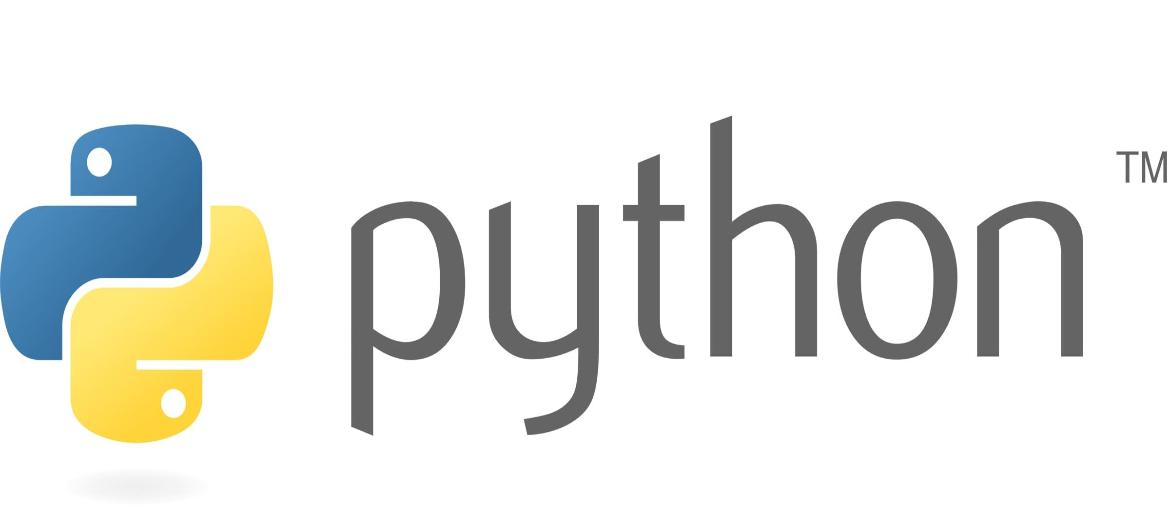
Python Font
What Font Does Python Use?
The Python Font is Flux Regular, the typeface used in Python’s logo and branding. Designed by Carlos and Sun Segura, Flux is a rounded, futuristic sans-serif with smooth curves, playful proportions, and a friendly tech aesthetic, giving the Python wordmark a modern, approachable, and innovative feel. Its soft shapes help balance Python’s image as both a powerful programming language and an easy-to-learn tool.
About Python
Python is a high-level programming language first released in 1991 by Guido van Rossum. It is known for its simple syntax, readability, and versatility, making it one of the most popular languages in the world for web development, data science, artificial intelligence, automation, and software engineering.
Python’s visual identity reflects its philosophy of being powerful yet easy to use. The friendly logo design and rounded typography support its reputation as a welcoming, community-driven language used by beginners and professionals alike across the global tech industry.